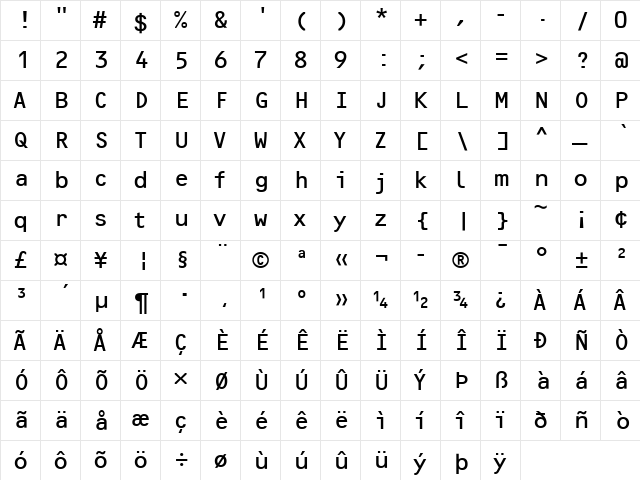
OCRF Regular Font Preview
OCRF Regular
OCRF Regular Font Details
| Foundry | \ Dutch Design, Albert-Jan Pool, . Published by FontShop International. FontFont release |
Design Context for OCRF Typeface
OCRF is a composed and adaptable typeface that performs quietly and consistently across a wide range of design contexts.